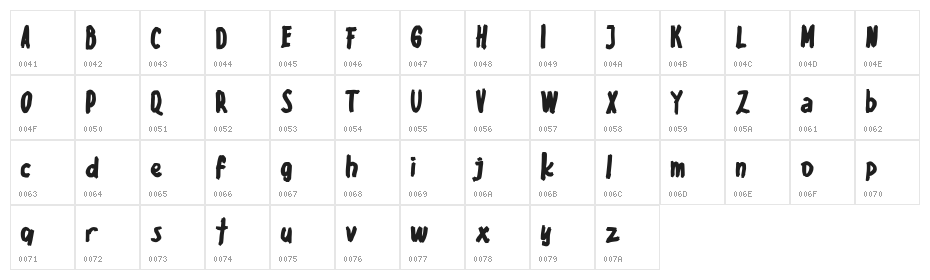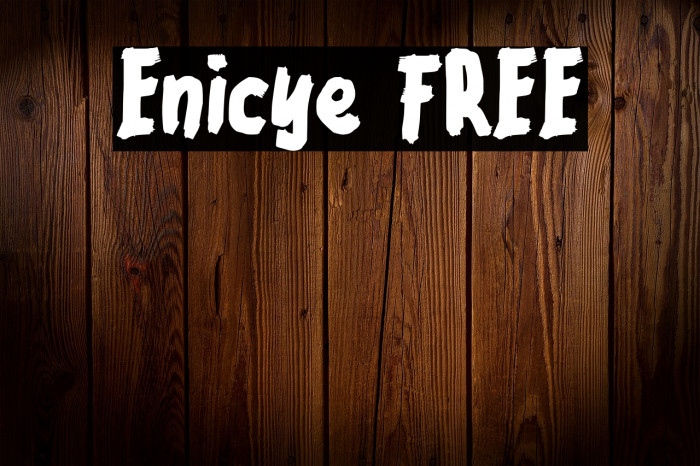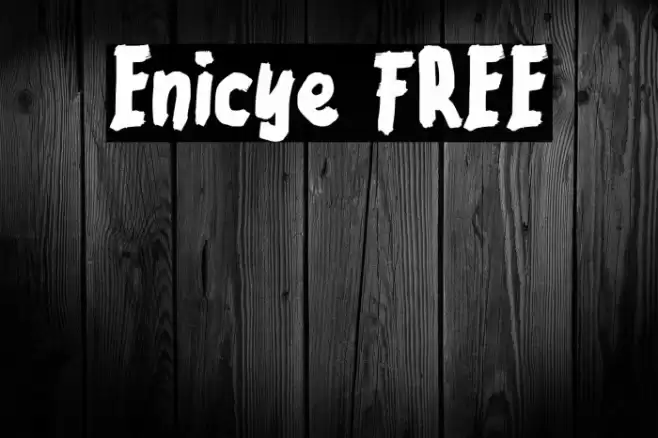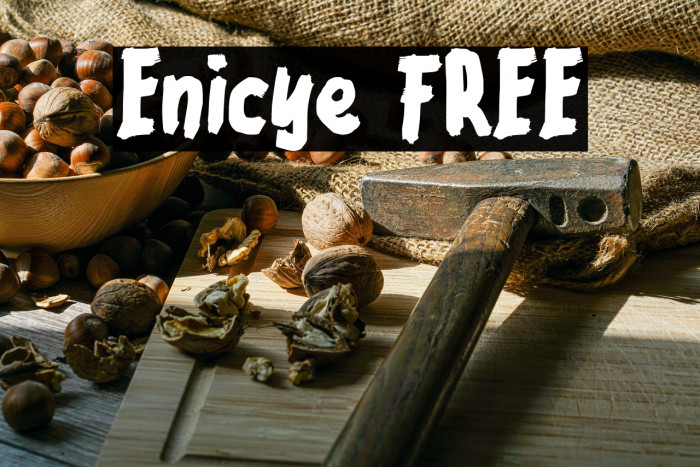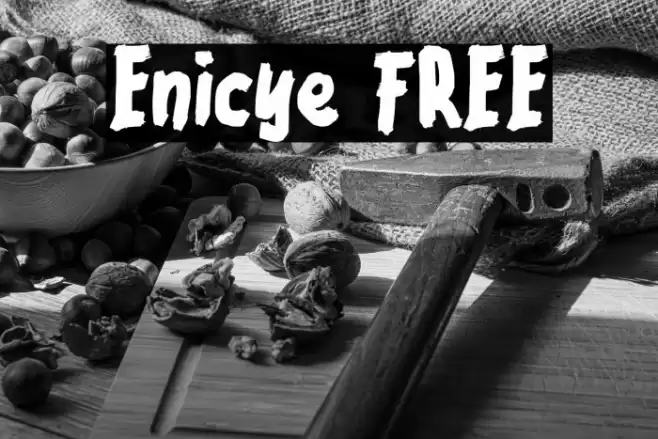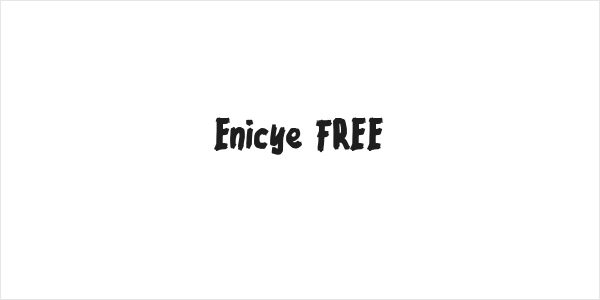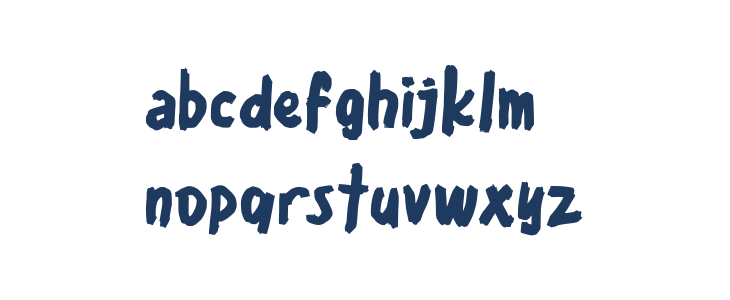
Enicye FREE Font
Enicye FREE Description
This font features a bold and expressive handwritten style, characterized by its thick, brush-like strokes that convey a sense of energy and dynamism. The uppercase and lowercase letters maintain a consistent weight, providing a cohesive look across all characters. The irregular edges and varying stroke widths add a touch of authenticity and artistic flair, making it ideal for projects that require a personal or creative touch. The font's unique style is well-suited for designs that aim to stand out and capture attention, such as posters, branding materials, and artistic projects.
| Use Case | Headlines, Logos, Artistic projects |
| Proposed Projects | Ideal for posters, branding, artistic projects, and any design needing a personal touch. |